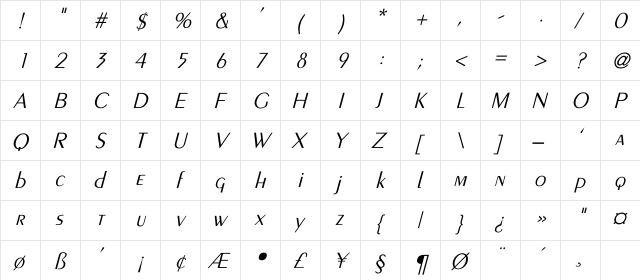
PEIGNOT-LIGHT-Thin Italic Italic
Design Context for PEIGNOT-LIGHT-Thin Italic Typeface
PEIGNOT-LIGHT-Thin Italic takes a measured approach to typography — its balanced proportions and neutral character make it a reliable workhorse for both digital and print work. The slanted form adds forward momentum and visual energy. The delicate stroke weight brings airiness and refinement to layouts.
Pro Tip: Use PEIGNOT-LIGHT-Thin Italic for emphasis, pull quotes, and subheadings where its slanted energy can add rhythm to the layout.